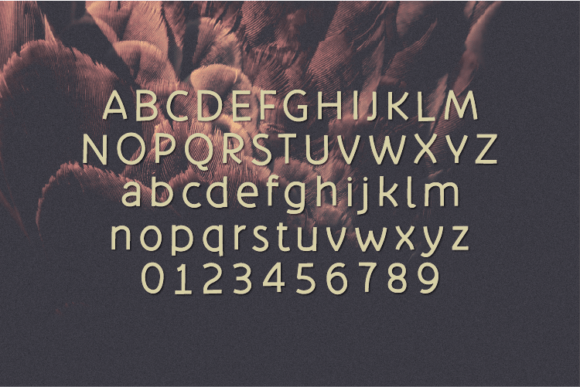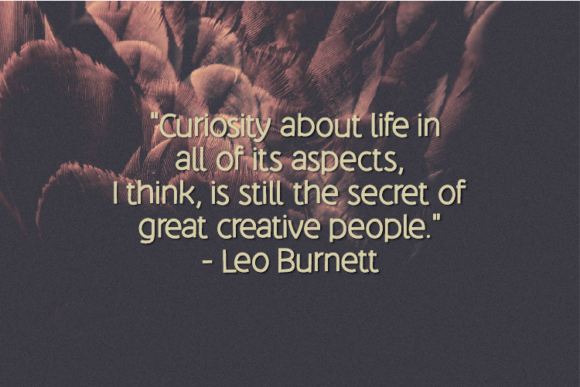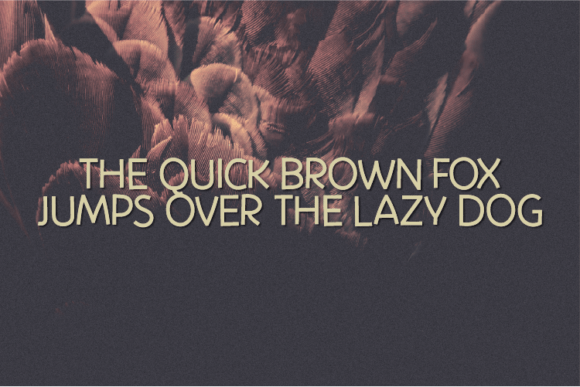
Abellone Font: The Unique Natural Sans Serif for Creative Designs
In the world of typography, fonts play a crucial role in conveying messages and adding personality to designs. For designers and crafters looking for a unique and natural sans serif font, Abellone is an excellent choice. This font stands out from the rest due to its distinctive feature of being crafted without altering a single node in each character’s indentation. This characteristic makes Abellone not only interesting but also uniquely suited for a variety of creative projects.
The Distinctive Feature of Abellone Font
Abellone’s most striking feature is its natural sans serif design, achieved by maintaining the original indentation of each character without any modifications. This approach gives the font a raw, unedited feel that is both refreshing and captivating. The absence of changes to the nodes results in a font that feels organic and hand-crafted, despite being a digital creation. This distinctive feature makes Abellone perfect for projects where a personal touch is desired.
Ideal for Various Creative Projects
Abellone’s versatility makes it suitable for a wide range of applications. Here are some of the areas where this font truly shines:
- Quotes: The natural and clear appearance of Abellone makes it an excellent choice for quotes. It ensures that the message is conveyed clearly and effectively, making it perfect for social media posts, posters, and flyers.
- Notes: For any project that involves note-taking or listing information, Abellone provides a clean and readable format. Its unique style ensures that your notes stand out, whether they’re part of a digital document or a physical notebook.
- Tees and Apparel: The distinctive look of Abellone makes it a great choice for designs on t-shirts, hoodies, and other apparel. It adds a personal touch to the designs, making them more appealing to wearers and observers alike.
- Product Design: For designers working on product labels, packaging, or promotional materials, Abellone offers a fresh and modern look. Its natural sans serif style can enhance the aesthetic appeal of various products, making them more attractive to potential customers.
Why Designers and Crafters Love Abellone
Designers and crafters are always on the lookout for fonts that can add a unique touch to their projects. Abellone’s distinctive feature and versatile nature have made it a favorite among creative professionals. Here are some reasons why:
- Uniqueness: In a sea of similar fonts, Abellone stands out due to its unaltered character indentations. This uniqueness allows designers to create projects that are distinct and memorable.
- Readability: Despite its unique style, Abellone remains highly readable, making it suitable for both digital and print projects.
- Flexibility: Abellone can be used across various platforms and mediums, from web design and social media to print materials and merchandise.
How to Use Abellone Effectively in Your Designs
To make the most of Abellone in your designs, consider the following tips:
- Pair it with Other Fonts: While Abellone is stunning on its own, it can also be paired with other fonts to create interesting contrasts. Experiment with serif fonts or script fonts to find the perfect combination for your project.
- Play with Sizes: Don’t be afraid to vary the font sizes to add hierarchy and emphasis to your designs. Abellone’s clear and readable nature makes it suitable for use in both headings and body text.
- Experiment with Colors: The natural look of Abellone pairs well with a variety of colors. Try using it with earth tones for a more organic feel or with bright colors for a more vibrant look.
Abellone font offers a fresh and unique approach to sans serif typography. Its natural style, combined with the distinctive feature of unaltered character indentations, makes it a valuable addition to any designer’s toolkit. Whether you’re working on quotes, notes, tees, or product designs, Abellone provides a versatile and captivating choice. By incorporating Abellone into your projects, you can add a personal touch that sets your designs apart.